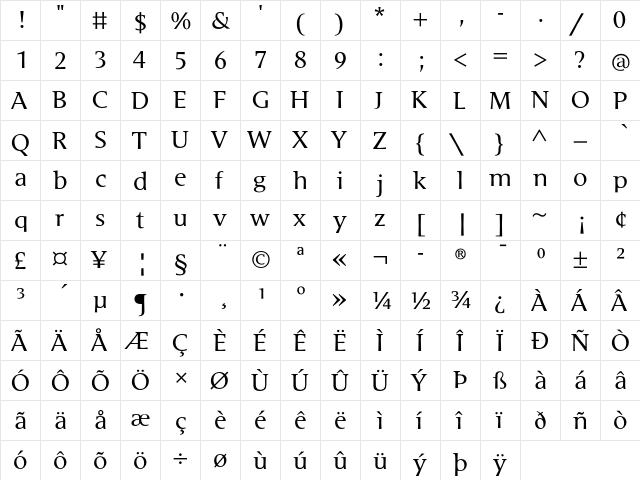
Areplos Book Pro Regular
| Foundry | Jan Solpera |
| Designer | Jan Solpera |
Design Context for Areplos Book Pro Typeface
Areplos Book Pro takes a measured approach to typography — its balanced proportions and neutral character make it a reliable workhorse for both digital and print work.